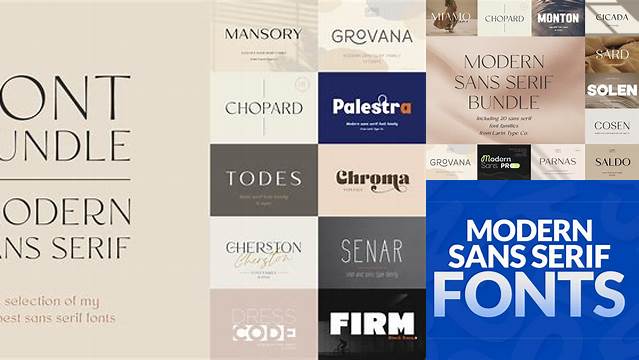
Modern Sans Serif Fonts: A Comprehensive Guide
Hey everyone! Let's dive into the awesome world of modern sans serif fonts. You see these guys everywhere, from your favorite websites and apps to the sleekest logos and print materials. But what exactly makes a sans serif font "modern"? And why are they so incredibly popular? In this guide, we'll break down everything you need to know about these versatile and stylish fonts, covering their history, key characteristics, and how to choose the perfect one for your project. Buckle up, because we're about to embark on a typography adventure!
Understanding the Essence of Sans Serif Fonts
So, what are sans serif fonts, anyway? The term "sans serif" comes from the French word "sans," meaning "without," and "serif," which refers to the small strokes or "feet" that you often see at the end of letters in traditional fonts like Times New Roman or Georgia. Sans serif fonts ditch those little serifs, giving them a clean, uncluttered look. This simplicity is a big part of their appeal, making them ideal for modern design. They tend to be incredibly readable, especially at smaller sizes and on digital screens.
Think about it: when you're scrolling through your phone or reading a website, you want a font that's easy on the eyes and gets your message across quickly. Sans serif fonts excel at this. They also often convey a sense of modernity, professionalism, and clarity. They're the go-to choice for brands looking to appear contemporary and approachable. From the minimalist aesthetic of Apple to the friendly vibe of Google, sans serif fonts have become a cornerstone of visual communication in the digital age. They offer a sleek, streamlined appearance that resonates with modern audiences. Understanding the core characteristics of sans serif fonts is the first step to appreciating their versatility and impact on design.
The Historical Roots and Evolution of Sans Serif Typography
Let's rewind the clock a bit. The origins of sans serif fonts aren't as ancient as you might think. While traditional serif fonts have roots in ancient Roman inscriptions, the first sans serif fonts emerged in the early 19th century. These early examples were often bold and blocky, lacking the refinement we see today. They were initially viewed with some skepticism, as they broke away from the established norms of typography. However, as printing technology advanced, so did the design of sans serif fonts.
Over time, designers began to experiment with different weights, widths, and styles, leading to the development of a diverse range of sans serif fonts. The early 20th century saw a surge in popularity, with movements like Bauhaus embracing the clean lines and minimalist aesthetic of sans serif fonts. This coincided with the rise of modernism, which celebrated functionality and simplicity. Designers embraced the font's ability to convey a sense of modernity and efficiency. Post-World War II, the popularity of sans serif fonts continued to soar, with the advent of digital typography creating even more possibilities. The ability to easily manipulate and modify fonts led to an explosion of new designs, solidifying their place as a staple in the design world.
Core Characteristics That Define Modern Sans Serif Fonts
Alright, let's get down to the nitty-gritty. What are the specific features that set modern sans serif fonts apart? Here are some of the key characteristics to watch out for: First of all, many modern fonts emphasize geometric forms. Geometric sans serif fonts are based on simple shapes like circles, squares, and triangles. They often have a clean, almost mechanical look. This gives them a very contemporary feel. Another crucial aspect is their legibility. Modern sans serif fonts are engineered to be easy to read, especially on screens. Designers carefully consider the shapes of letters, the spacing between them, and the overall weight of the font to ensure optimal readability. They have the characteristic to present a sense of neutrality. Modern sans serif fonts often strive for a neutral appearance, avoiding excessive ornamentation or personality. This makes them highly versatile and suitable for a wide range of applications. They can be effectively used across different design projects, including branding, web design, and print materials.
Consider the contrast. Modern sans serif fonts often have a low or moderate contrast between thick and thin strokes. This helps to maintain a consistent visual weight, which enhances readability. The stroke weight helps maintain an aspect of readability. Also the font has a variety of weights and styles. Many modern sans serif fonts come in a wide range of weights, from ultra-light to bold, and various styles, such as italics and condensed versions. This flexibility makes it easy to find the perfect font for any project. And it enables designers to customize the appearance based on specific needs.
Exploring the World of Different Sans Serif Font Styles
Now, let's dive into the diverse world of modern sans serif font styles. There's a whole spectrum out there, each with its own unique personality and applications. From the minimalist and geometric to the humanist and quirky, understanding the nuances of each style will help you make informed choices for your design projects. Let's explore some of the most popular categories.
Geometric Sans Serif: Clean Lines and Modern Appeal
Geometric sans serif fonts are all about clean lines, simple shapes, and a sense of order. As mentioned earlier, these fonts are based on fundamental geometric forms like circles, squares, and triangles. This gives them a distinctly modern and often minimalist aesthetic. Examples of geometric sans serif fonts include Futura, which is a classic choice known for its clean, geometric construction. It has a timeless appeal that works exceptionally well for branding and headlines. Another notable font is Gotham, which gained significant popularity due to its use in the Obama presidential campaign. Its geometric structure gives it a strong, confident appearance.
Geometric fonts are great for conveying a sense of precision, modernity, and efficiency. They're often used in branding for technology companies, startups, and any brand that wants to project a cutting-edge image. Because of their simplicity, they're also highly versatile and work well in various contexts, from website design to print materials.
Grotesque Sans Serif: Bold and Unconventional Choices
Grotesque sans serif fonts are the older, more robust cousins of geometric fonts. They typically feature a bolder appearance with less refinement. These fonts often have a more utilitarian feel, making them excellent choices for projects that demand attention. Grotesque fonts have a slightly less formal vibe than geometric sans serifs. They can work especially well in projects that want to feel raw or unconventional. Examples of grotesque fonts include Helvetica, which is perhaps the most famous sans serif font of all time. It's a versatile workhorse that has been used in everything from corporate branding to street signs. Another example is Akzidenz-Grotesk, a predecessor to Helvetica that has a slightly more rugged feel. These types of fonts are often used for headlines, signage, and other applications where strong visual impact is desired.
Humanist Sans Serif: Blending Readability and Personality
Humanist sans serif fonts blend the clean lines of sans serif with the calligraphic influence of humanist fonts. This results in a more organic and readable style. They're often more legible in large blocks of text. Humanist fonts are a great choice if you want something that's clean, modern, and easy on the eye. Unlike their geometric cousins, humanist fonts have a touch of warmth and personality. They're ideal for projects that require a balance of readability and a friendly tone. Examples include Gill Sans, which has a slightly rounded appearance and a classic feel. Gill Sans is a great option for body text and headlines. Another notable font is Frutiger, designed for signage. Its open letterforms and clear style make it highly readable, even at a distance. Humanist fonts are a versatile option for web design and content-heavy projects where readability is a top priority.
Neo-Grotesque Sans Serif: Refined and Versatile Options
Neo-grotesque sans serifs are a refined take on the grotesque style. They maintain the boldness of grotesque fonts but with a more streamlined and balanced design. They are a great choice for a variety of projects. These fonts offer a balance of boldness and subtlety. They are often used for a modern and professional look. Examples include Helvetica Neue, a more refined version of Helvetica. It is a timeless classic used across industries. Another notable font is Univers, known for its versatility across different weights and styles. Neo-grotesque fonts are excellent for branding, editorial design, and any project that needs a clean, modern, and reliable font.
Choosing the Right Modern Sans Serif Font for Your Project
So, how do you choose the perfect sans serif font for your project? It all comes down to understanding your goals, your audience, and the message you want to convey. Let's break down the key factors to consider.
Understanding Your Project's Objectives and Audience
Before you even think about font choices, take a moment to clarify your project's objectives and target audience. Consider what you want to achieve. Are you trying to build a brand? Or designing a website? What feeling do you want your project to evoke? Think about your audience too. Who are they? What are their preferences? Do they prefer a more formal or casual style? The font you select should resonate with your audience and support your project's goals. This is what will help you choose the appropriate typeface.
For example, if you're designing a website for a tech startup, you might choose a geometric sans serif font like Gotham to convey a sense of modernity and innovation. If you're creating a brochure for an art gallery, a humanist font like Gill Sans might be a better choice to create a warm and inviting tone. By taking the time to understand your project's objectives and your audience, you can make informed decisions. This will help you select the best font for your design.
Assessing Readability and Legibility Across Different Media
Readability and legibility are crucial, especially in the digital age. A font that looks great in a headline might not be suitable for body text. Consider the size and context of your text. Is it a website? Is it printed material? Will people be reading it on a phone or a large screen? You need to think about readability and how the font performs across different media.
Test your font choices in various sizes and contexts. Does it retain its readability at small sizes? Does it look good in bold or italic? If you're designing for a website, consider how the font will render on different browsers and devices. Make sure it looks good on a variety of screens. For print, ensure the font is easy to read. Consider the paper stock and printing method. Choose a font that maintains its clarity. Always prioritize readability and legibility to make sure your message is conveyed effectively.
Matching Font Styles to Your Brand's Personality
Your font choice should reflect your brand's personality. Is your brand playful and quirky, or professional and serious? Does your brand convey luxury? Or is it more of a minimalist brand? Your font should reinforce your brand's identity. This is a key factor in the choice of typeface. Geometric sans serif fonts, with their clean lines and precise structure, are often a great fit for brands that want to project a sense of modernity and efficiency. Humanist sans serif fonts, on the other hand, with their more organic forms, can create a warmer and friendlier tone. Grotesque fonts can inject personality if a brand has a more unconventional persona.
Consider the overall aesthetic of your brand. Does your brand use bright, bold colors? If so, you might want to balance that with a clean, neutral font. Conversely, if your brand's color palette is more muted, you might choose a font with a bit more personality. Remember, your font is a visual representation of your brand. So, make sure it reflects your brand's values and resonates with your target audience. By carefully selecting the font styles, you're creating a consistent and memorable brand experience.
Top Modern Sans Serif Fonts and Their Applications
Now, let's highlight some of the top modern sans serif fonts and where they excel. These fonts have earned their place in the design world. These fonts are used across different industries. And they offer versatility and visual appeal.
Futura: A Timeless Classic for Branding and Headlines
Futura is a classic geometric sans serif font that's been a favorite of designers for decades. Its clean, geometric construction gives it a timeless and modern appeal. Futura is great for headlines, logotypes, and branding projects. It projects a sense of precision, modernity, and sophistication. Think of the logos for brands like Louis Vuitton and Volkswagen. Their logos utilize the Futura font. It works extremely well in a variety of contexts. You can use this font in print materials and digital designs. Futura's simplicity also makes it highly versatile. It's a great choice if you're looking for a font that's both stylish and enduring.
Gotham: The Confident Choice for Modern Design
Gotham is a geometric sans serif font that gained significant popularity in the early 2000s. Its strong, confident appearance makes it an excellent choice for headlines, branding, and advertising. Gotham is known for its geometric structure. It's an adaptable font that can create a modern and stylish design. You may have noticed Gotham being used in the Obama presidential campaign, where its strong, straightforward personality helped convey a message of confidence and leadership. It's also used by many brands. Gotham is a great option for projects. Gotham is used for projects that want to project a sense of authority and modernity. It works equally well in both digital and print media.
Helvetica and Neue Helvetica: A Versatile Workhorse
Helvetica is perhaps the most well-known sans serif font. Its clean and neutral design has made it a go-to choice for designers for decades. Helvetica is incredibly versatile. This font is used in everything from corporate branding to street signs. It's a reliable workhorse. Helvetica's simple, legible forms make it suitable for everything. Helvetica Neue is a more refined version of the original. It offers a slightly updated design that's well-suited for contemporary design projects. You can't go wrong with Helvetica in your project, because it offers wide flexibility and adaptability.
Open Sans: Readability for the Digital Age
Open Sans is a humanist sans serif font optimized for readability on screens. It has become a popular choice for web design and digital applications. Its open letterforms and clear design make it extremely easy to read, even at small sizes. Open Sans is a versatile and popular choice for content-heavy projects. It ensures a smooth reading experience. Its neutral and approachable design makes it suitable for a wide variety of applications. You can see Open Sans used on websites, in apps, and other digital platforms.
Montserrat: A Modern Font with Geometric Inspiration
Montserrat is a modern sans serif font inspired by the architecture of the Montserrat neighborhood in Buenos Aires. Its geometric forms and clean lines give it a contemporary feel. Montserrat has many applications. It is an excellent choice for headlines, branding, and web design. This versatile font is easily adaptable to a range of design projects. It works beautifully on digital screens and in print materials. Montserrat's stylish and modern design helps convey a professional and visually pleasing impression.
Best Practices for Using Modern Sans Serif Fonts
To make the most of modern sans serif fonts, there are some best practices to keep in mind. These tips will help you optimize your typography and make your designs as effective as possible.
Pairing Sans Serif Fonts Effectively
Pairing fonts can significantly enhance your designs. You will want to create a visual interest and hierarchy. It's common to combine a sans serif font with a serif font, or with another sans serif font. When pairing fonts, consider their visual characteristics. You'll want to ensure they complement each other. For example, you can pair a geometric sans serif font for headlines with a humanist sans serif font for body text. This can create a balanced look. Also consider the contrast in weight, style, and width. Make sure that the fonts work together. Avoid using too many fonts. Sticking to two or three fonts can help create a cohesive and harmonious design.
Optimizing Typography for Web and Print Design
Typography plays a critical role in both web and print design. For web design, you should prioritize readability. Use a font size of at least 16 pixels for body text. Choose a font that renders well on different devices. Make sure there's enough contrast between the text and the background. Adjust line spacing for optimal readability. For print design, consider the paper stock and printing method. The font's appearance can change depending on these factors. Test your font at the desired size. Make sure it's easy to read. Use appropriate kerning and tracking. Consider the overall layout and white space.
Ensuring Legibility in Different Sizes and Contexts
Legibility is crucial, regardless of your project. This is also crucial for sans serif fonts. Test your font choices in various sizes and contexts. Make sure they remain readable, even at smaller sizes. Check how the font looks in bold, italics, or other styles. It's helpful to use a font that has a range of weights. This will allow you to create visual interest. Also consider the context. A font that works well in a headline might not work well in body text. Make sure your font choice fits the use case.
The Future of Sans Serif Fonts in Design
The world of design is always evolving, and sans serif fonts are no exception. Here's what the future might hold for these versatile typefaces.
Emerging Trends and Innovations in Sans Serif Design
The evolution of sans serif fonts continues. Designers are constantly pushing the boundaries. We're seeing a rise in variable fonts, which allow for smooth transitions between different weights and styles. This offers incredible flexibility and control. New trends also include more experimentation with unusual shapes and forms. This leads to fonts that are both visually unique and highly functional. With technological advances and creative exploration, we can expect even more innovation in the years ahead.
The Role of Sans Serif Fonts in Branding and Visual Communication
Sans serif fonts will continue to play a crucial role in branding and visual communication. Their versatility and adaptability make them perfect for diverse projects. As brands strive to connect with audiences, sans serif fonts will continue to be preferred. They're an excellent choice for conveying modern values. In the future, we'll likely see even more sophisticated uses of sans serif fonts. Expect creative and innovative ways in branding and communication.
Adapting to New Technologies and Design Challenges
Sans serif fonts will have to adapt to new technologies and design challenges. This means that they will continue to adapt to new screen resolutions and interface elements. The demand for accessible design will also influence the choice of fonts. Designers will have to consider accessibility standards. Fonts that are readable for everyone. The need for versatility across platforms is increasing. So, we'll see more sans serif fonts that are optimized for all devices.
Key Takeaways and Conclusion
Alright, folks, we've covered a lot of ground! Let's recap the key takeaways about modern sans serif fonts. They are incredibly versatile, and their clean lines and modern appeal make them a favorite of designers everywhere. They're perfect for various applications. From branding to website design, these fonts offer a wide range of options. Choosing the right sans serif font depends on your project's goals, your audience, and the message you want to convey. Consider readability, brand personality, and legibility. By following these guidelines, you can create designs that are both visually appealing and highly effective.
Final Thoughts and Further Exploration
Thanks for joining me on this typography adventure! Remember, the best way to learn about modern sans serif fonts is to experiment and explore. There is an amazing amount of information available out there. There are resources such as font foundries, design blogs, and online tutorials. Don't be afraid to experiment with different fonts. Play around with different pairings. Test your designs in various contexts. Embrace the beauty and versatility of sans serif fonts, and let your creativity flow! Happy designing, everyone!